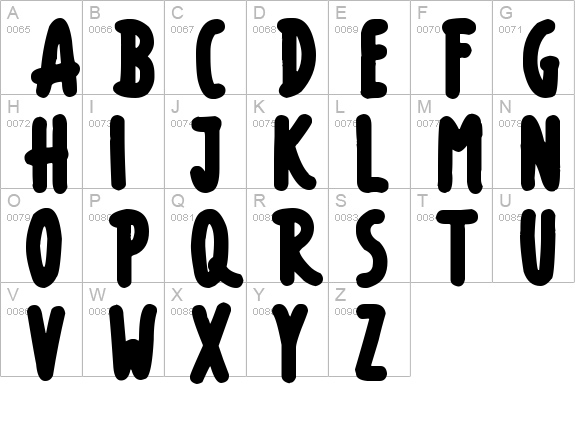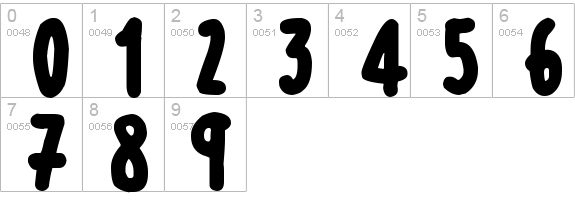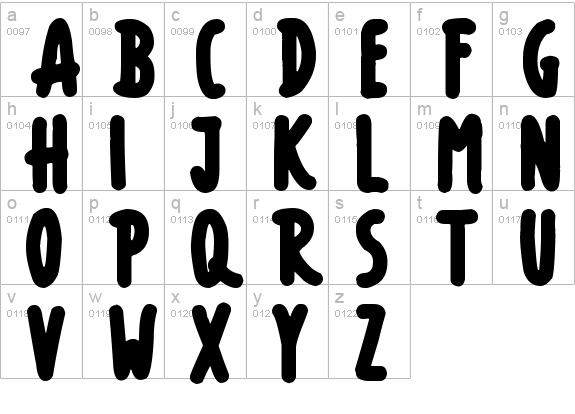
Thick Marker Talls Font Details
Thick Marker Talls is a free for personal use font in the Script > Handwritten category, designed by Darrell Flood. It has been downloaded 139 times and is available for Windows, Mac and Linux.
Thick Marker Talls font is a bold and eye-catching typeface that exudes a playful and energetic vibe. With its thick strokes and tall letterforms, this font is perfect for making a statement in your designs. Whether you're creating posters, banners, or social media graphics, Thick Marker Talls will ensure that your message stands out.